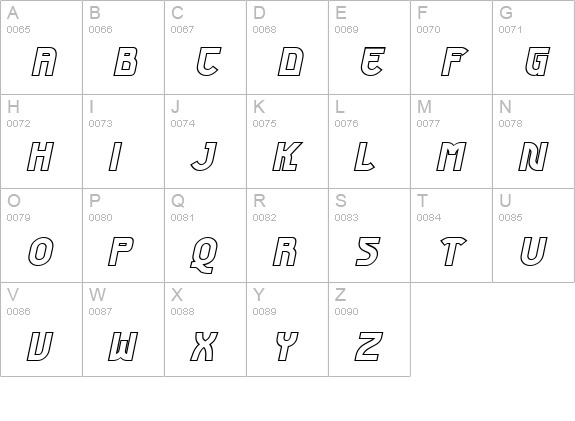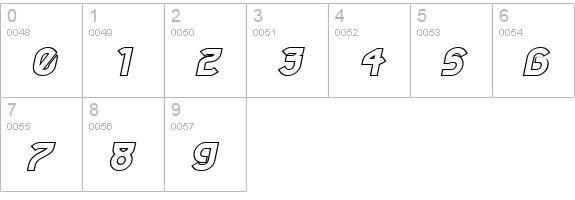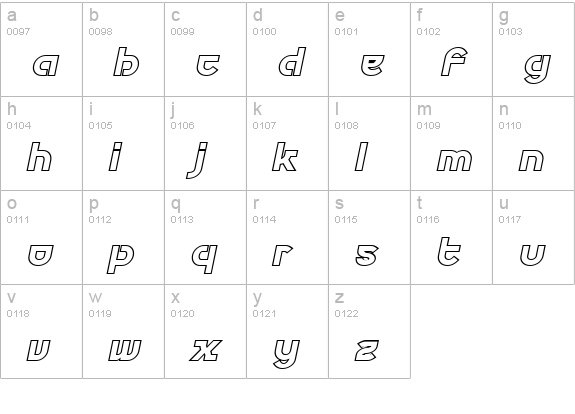
Futurex Phat Outline Italic is a distinctive, italic variant in the Futurex typeface family \xE2\x80\x94 well suited to design and typography projects.
Futurex Phat Outline Italic is a bold and eye-catching font that exudes modernity and creativity. Its sleek and unique design make it perfect for various design projects, from posters to branding materials. The italicized style adds a touch of elegance and sophistication to any text it is applied to. With its striking outlines, Futurex Phat Outline Italic commands attention and stands out from the crowd. The best part about Futurex Phat Outline Italic is that it is completely free to download at FontsMarket.com. This means you can easily access this stylish font and incorporate it into your designs without any cost. Don't miss out on this fantastic opportunity to enhance your projects with the bold and contemporary look of Futurex Phat Outline Italic. Download it today and let your creativity shine!